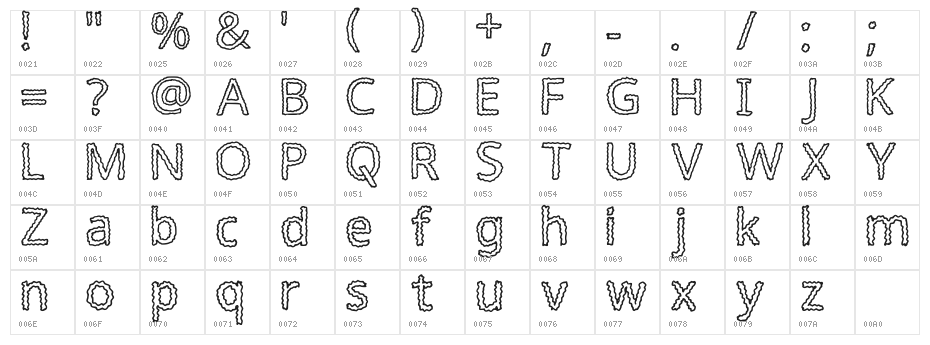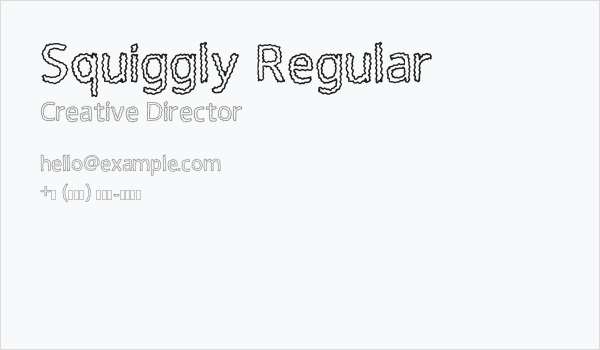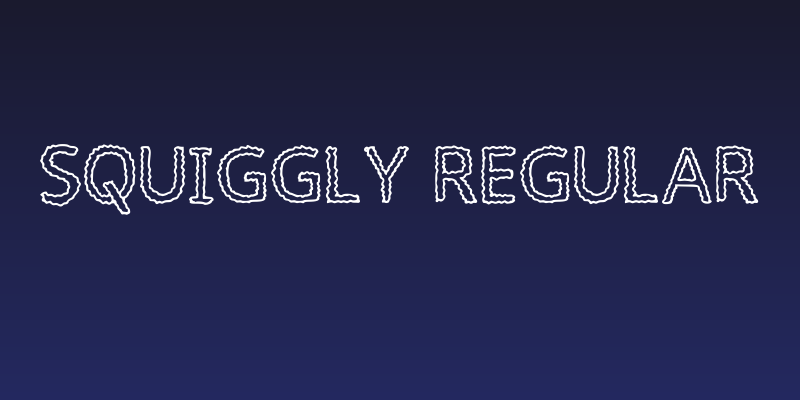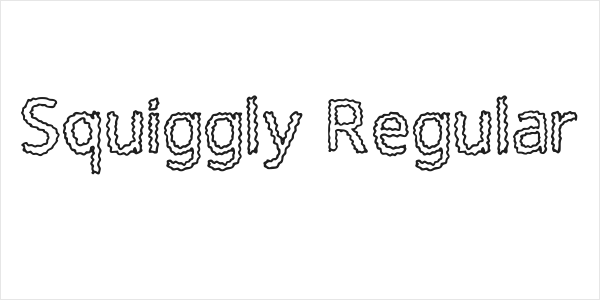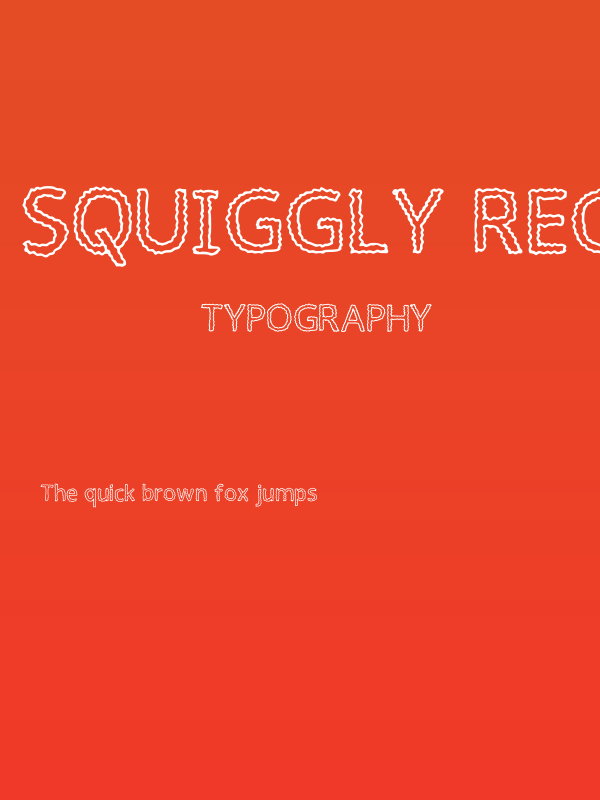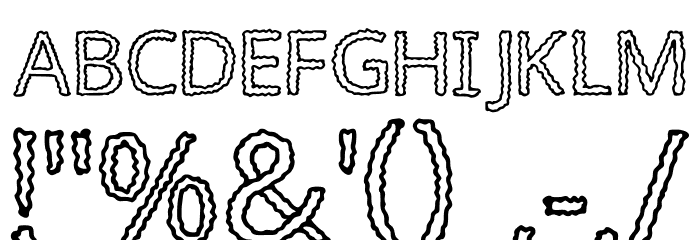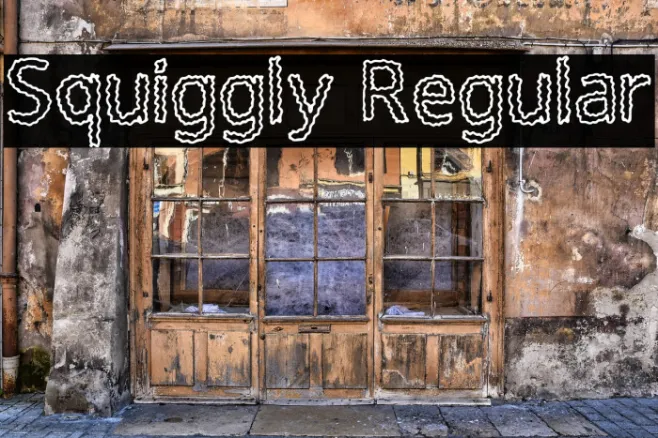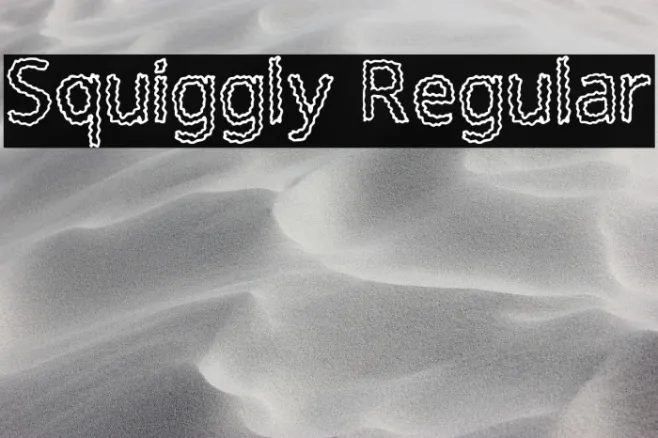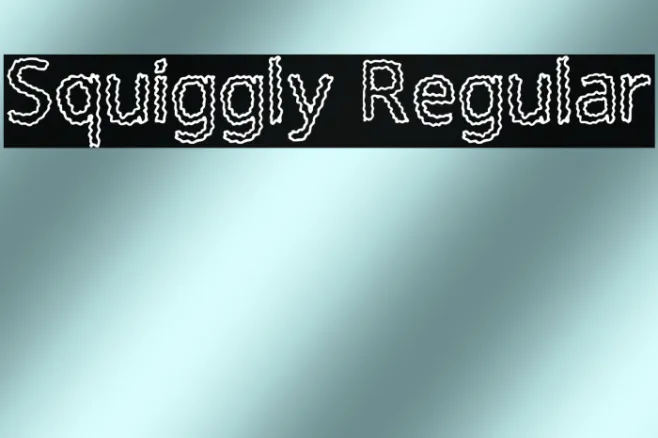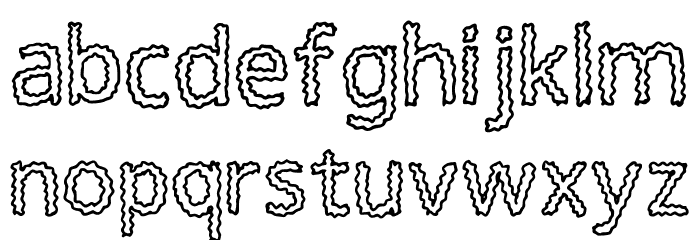
Squiggly Regular Font
Squiggly Regular Description
This font features a playful and wavy outline that gives each character a unique, hand-drawn appearance. The letters are formed with a consistent squiggly line that creates a sense of movement and whimsy. Despite its decorative nature, the font maintains good legibility, making it suitable for various creative applications. The uppercase and lowercase letters are well-proportioned, and the numbers and special characters follow the same stylistic approach, ensuring a cohesive look across all text elements. The font's distinctive style makes it ideal for projects that require a fun and informal touch.
| Overall Style | Playful, Hand-drawn |
| Proposed Projects | Great for children's books, playful branding, greeting cards, and creative posters. |